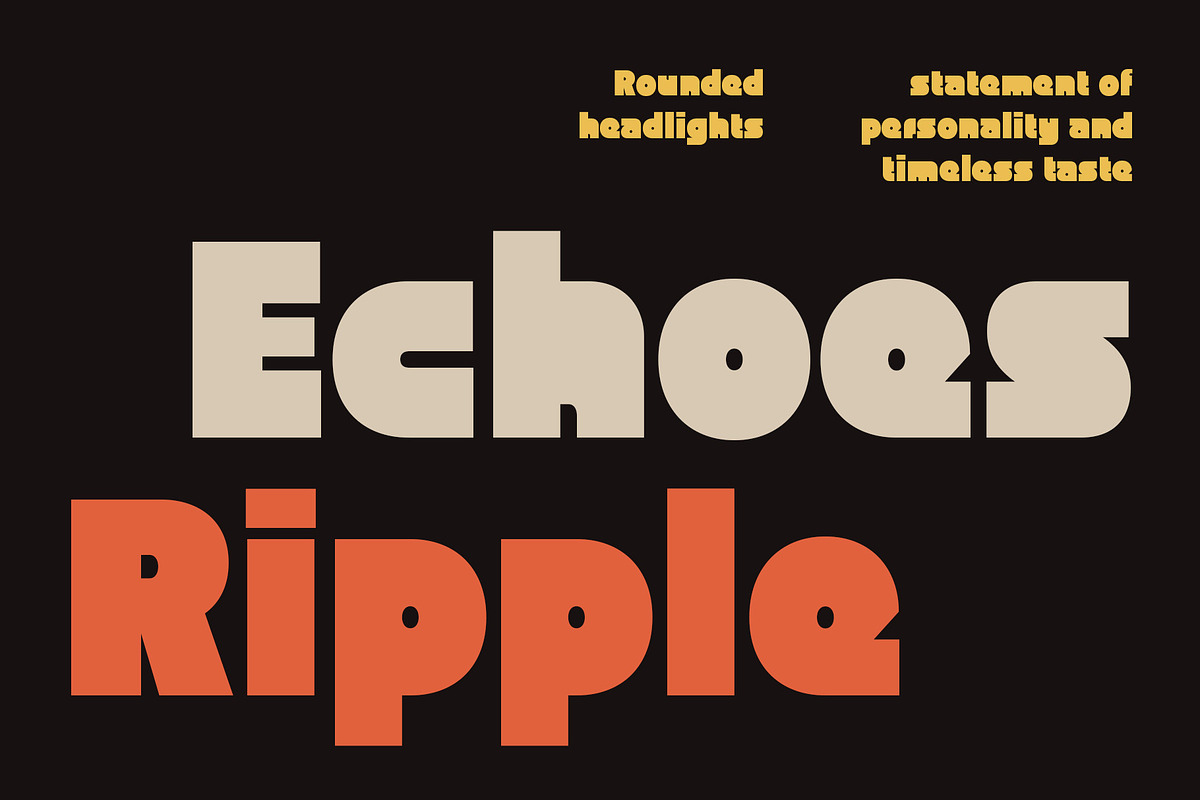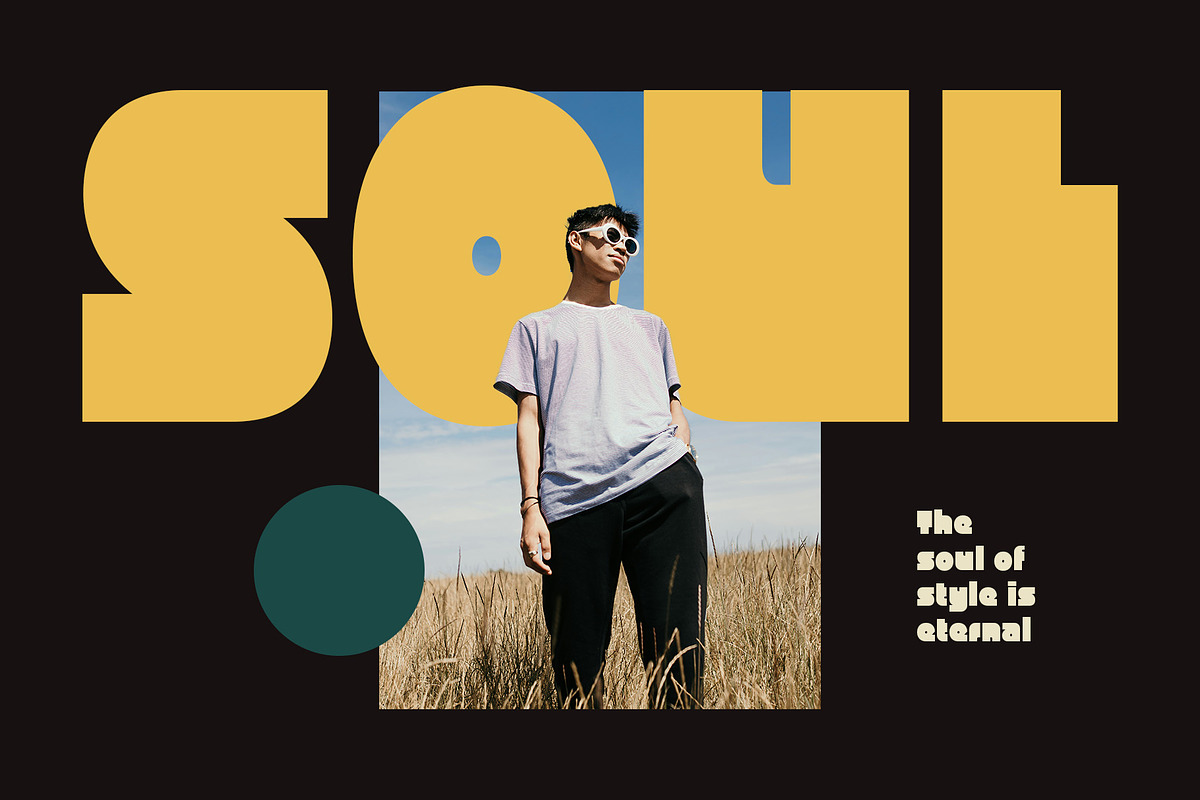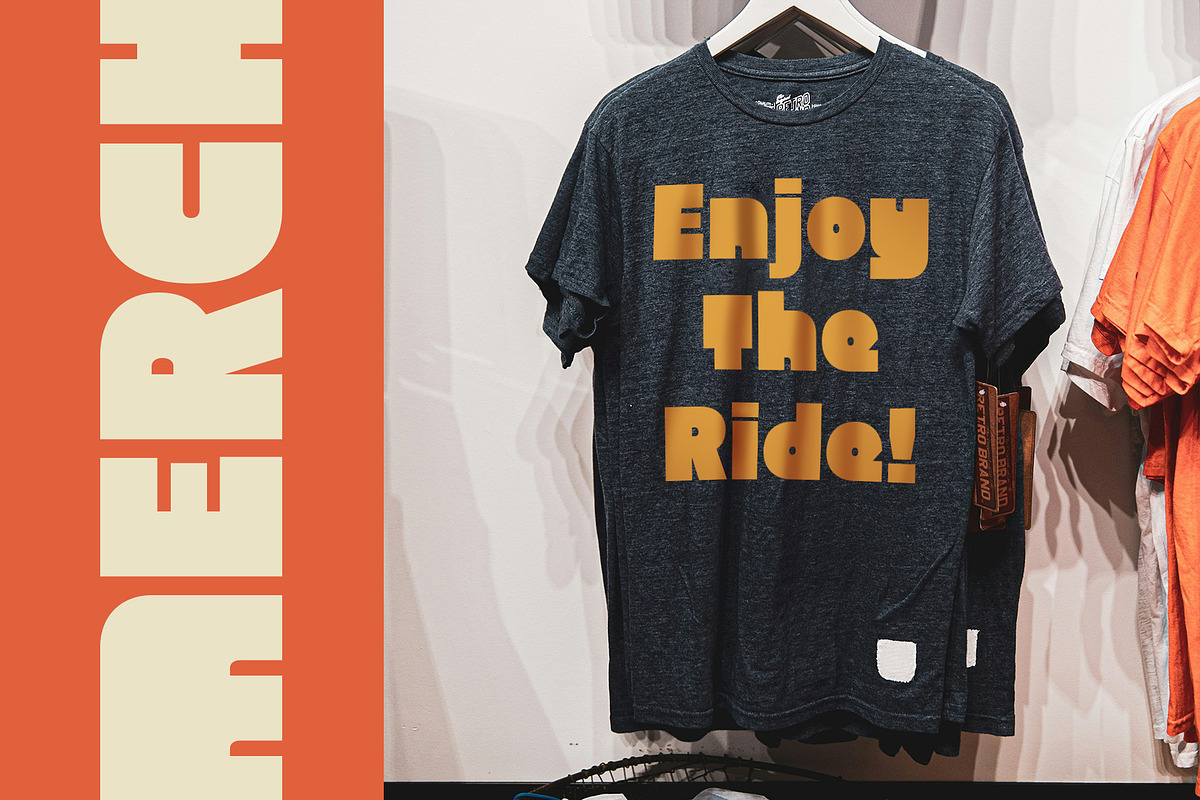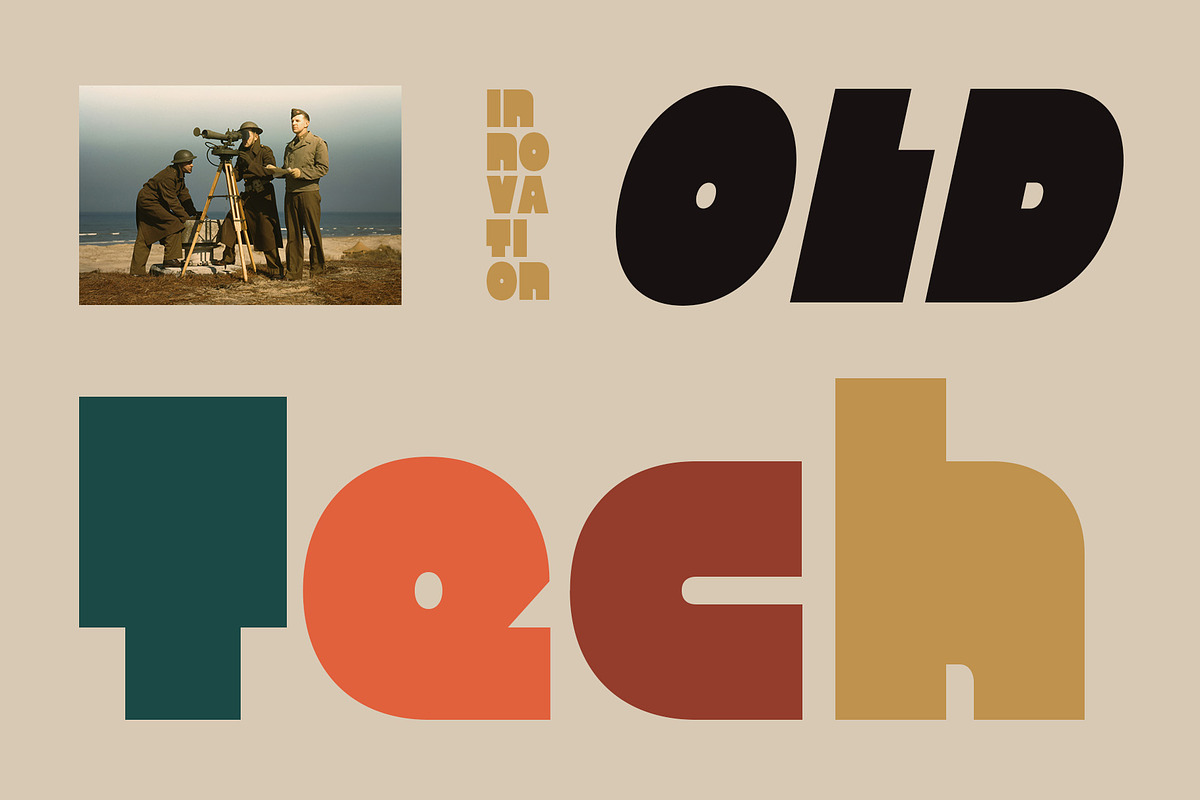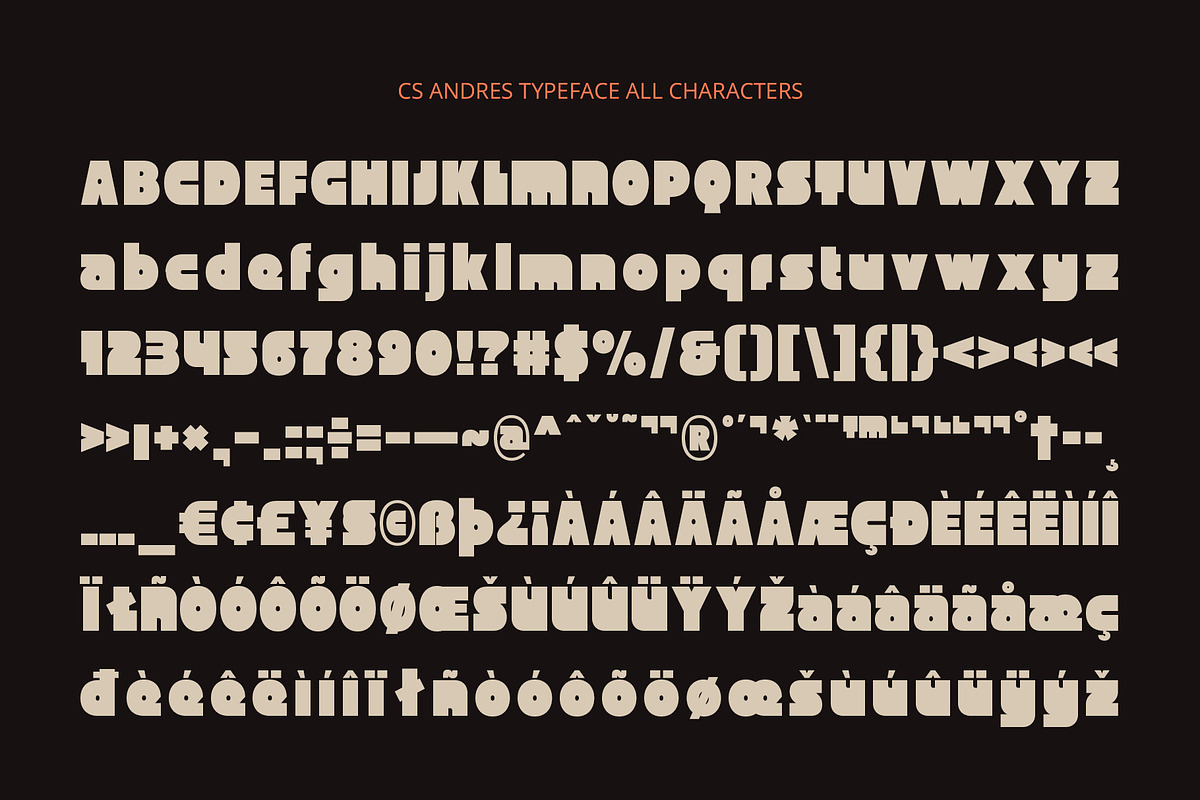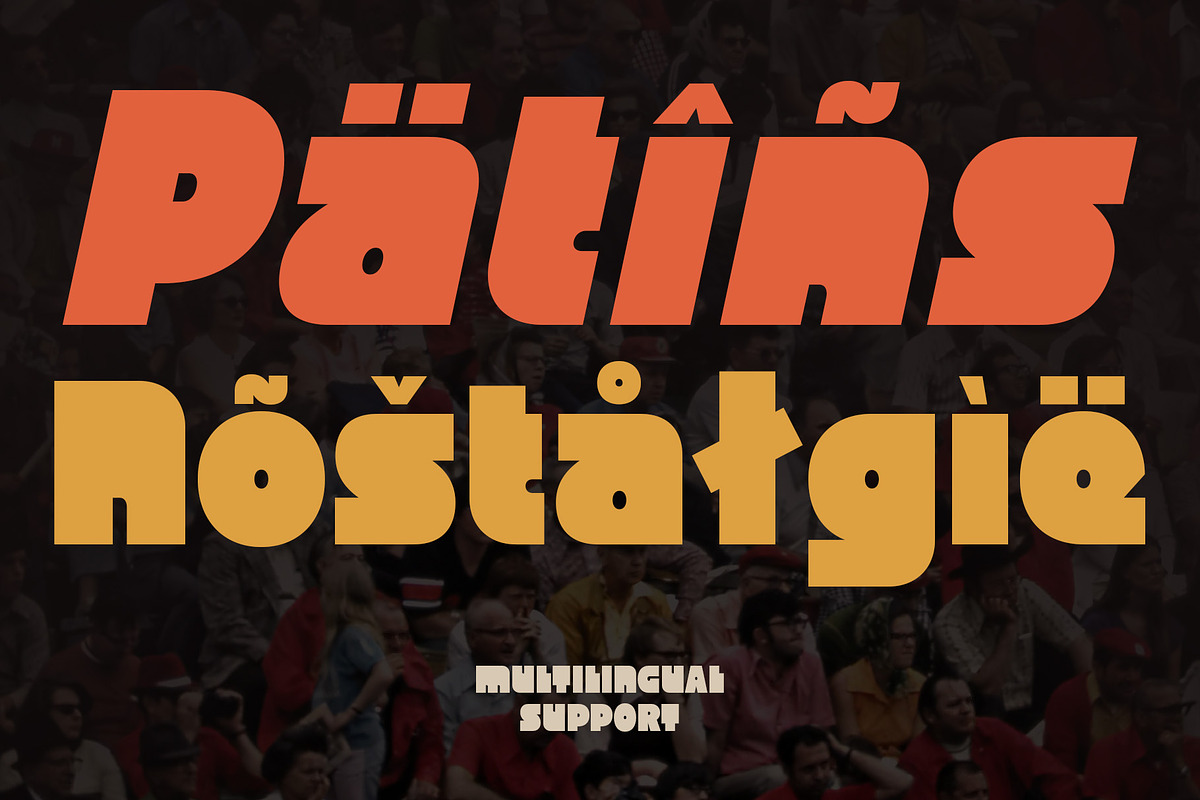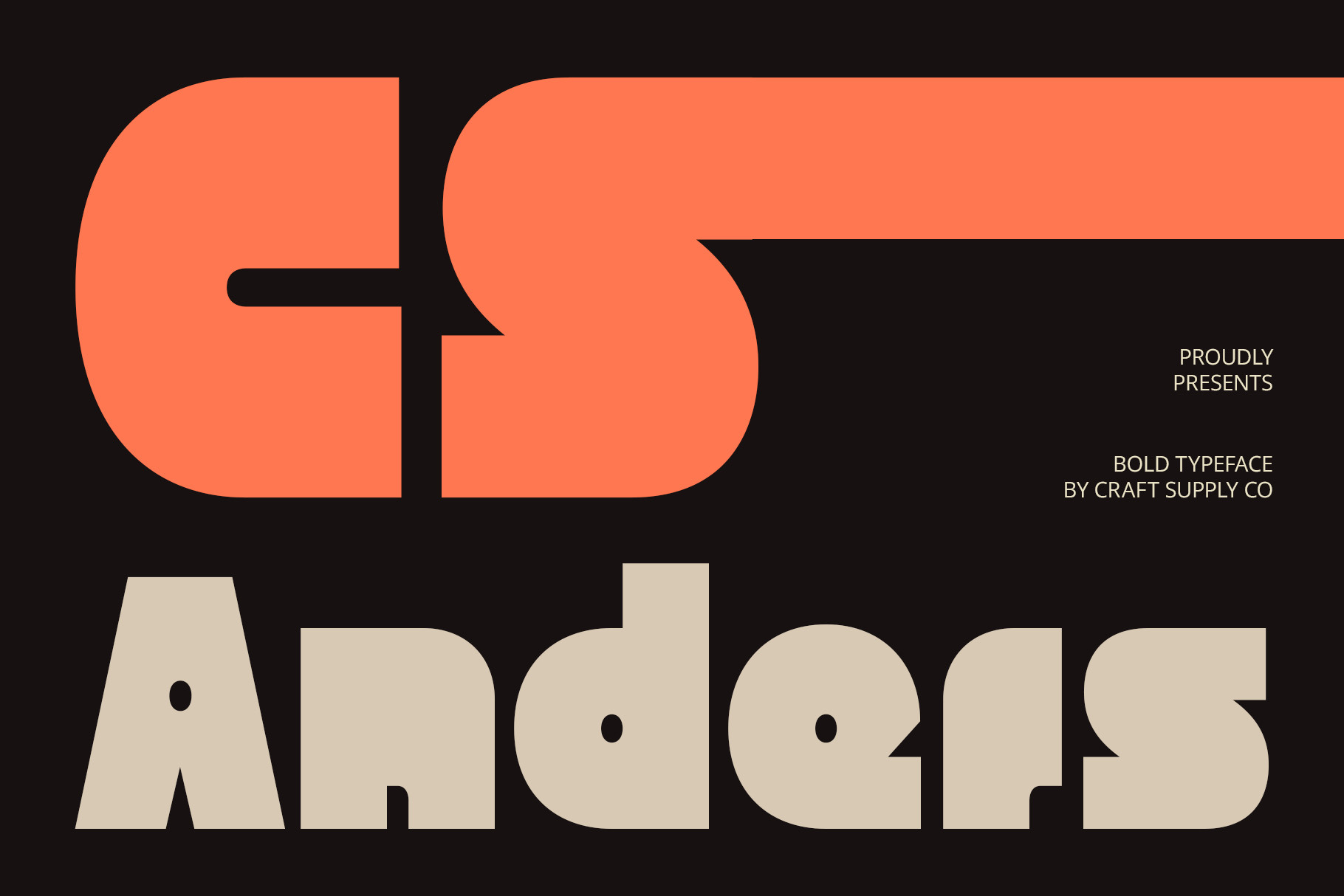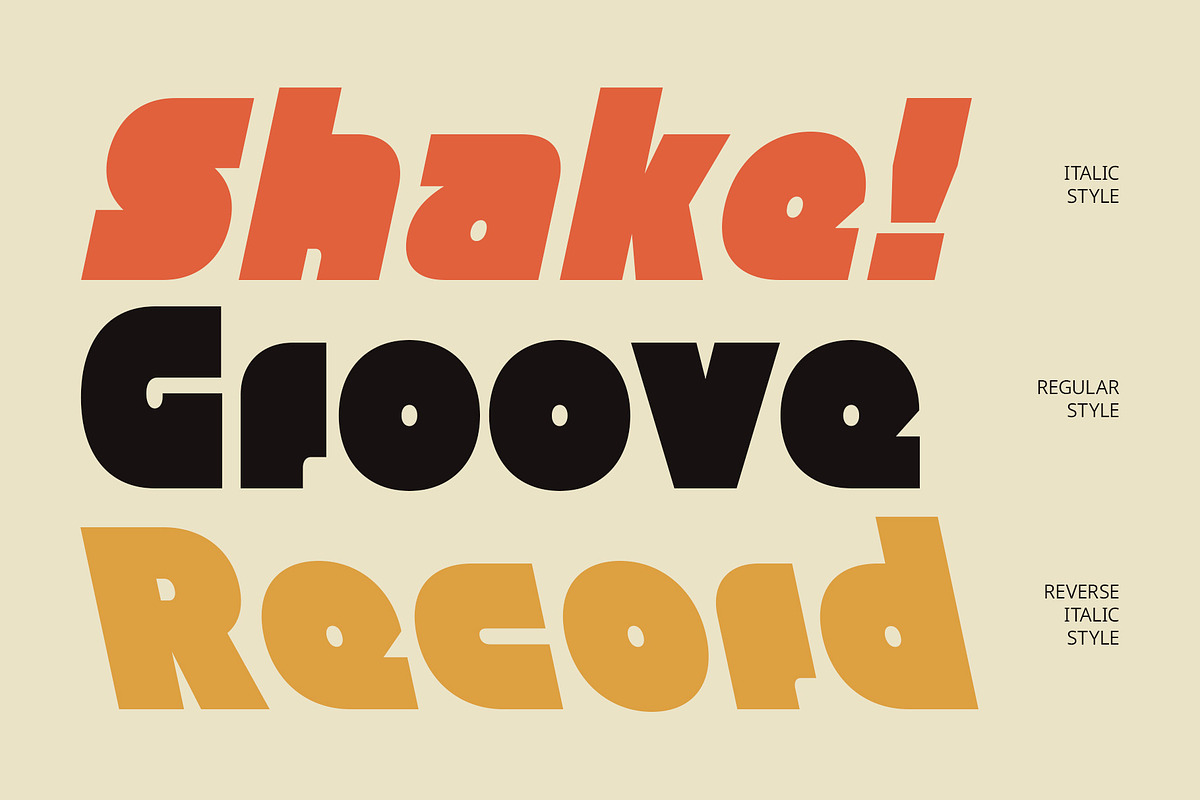
CS Anders – Bold Font
CS Anders – Bold Font: Retro Energy with Modern Impact
Big, Bold, and Playfully Expressive CS Anders is a bold display sans serif font that channels the vibrant spirit of 90s design. With oversized letterforms and a confident structure, it delivers high visual impact that demands attention while retaining a clean, modern flow.
Retro Funk Meets Modern Versatility Inspired by the colorful, playful energy of retro aesthetics, CS Anders brings a funky, nostalgic charm to any design. Its chunky, expressive shapes radiate positivity and bold personality—ideal for visual projects that celebrate creativity and individuality.
Perfect for Loud and Lively Designs Whether you’re designing music posters, album covers, creative packaging, or expressive branding, CS Anders makes a statement. Its retro flair and powerful form make it the perfect choice for eye-catching, upbeat, and fun-forward visuals.
Modern Edge with Vintage Personality Though rooted in nostalgic style, CS Anders maintains a clean and updated silhouette that aligns with today’s visual trends. It strikes the balance between past and present, making it a versatile go-to for bold, memorable design work. CS Anders stands out through its boldness and unique flair. The font doesn’t just decorate—it defines the mood. With its retro roots and strong modern structure, it supports projects that need to communicate fun, freedom, creativity, or bold identity with confidence.